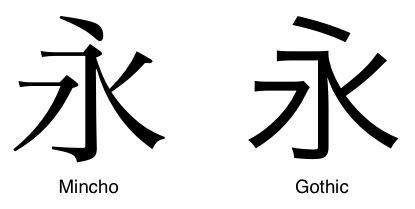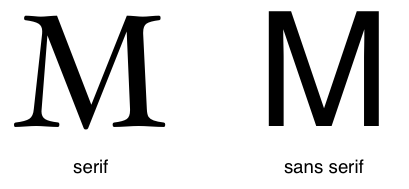
Abstract
This CSS3 module describes how font properties are specified and how font resources are loaded dynamically. The contents of this specification are a consolidation of content previously divided into CSS3 Fonts and CSS3 Web Fonts modules. The description of font load events was moved into the CSS Font Loading module.
1. Introduction
A font provides a resource containing the visual representation of characters [CHARMOD][UNICODE]. At the simplest level it contains information that maps character codes to shapes (called glyphs) that represent these characters. Fonts sharing a common design style are commonly grouped into font families classified by a set of standard font properties. Within a family, the shape displayed for a given character can vary by stroke weight, slant or relative width, among others. An individual font face is described by a unique combination of these properties. For a given range of text, CSS font properties are used to select a font family and a specific font face within that family to be used when rendering that text. As a simple example, to use the bold form of Helvetica one could use:
Font resources may be installed locally on the system on which a user agent is running or downloadable. For local font resources descriptive information can be obtained directly from the font resource. For downloadable font resources (sometimes referred to as web fonts), the descriptive information is included with the reference to the font resource.
Families of fonts typically don't contain a single face for each possible variation of font properties. The CSS font selection mechanism describes how to match a given set of CSS font properties to a single font face.
2. Typography Background
This section is non-normative.
Typographic traditions vary across the globe, so there is no unique way to classify all fonts across languages and cultures. For even common Latin letters, wide variations are possible:
variations in glyphs for a single character
One character, many glyph variations
Differences in the anatomy of letterforms is one way to distinguish fonts. For Latin fonts, flourishes at the ends of a character's main strokes, or serifs, can distinguish a font from those without. Similar comparisons exist in non-Latin fonts between fonts with tapered strokes and those using primarily uniform strokes:
For simple Latin text, only the font for Latin characters is downloaded:
In this case the user agent first checks the unicode-range for the font containing Latin characters (DroidSans.woff). Since all the characters above are in the range U+0-5FF, the user agent downloads the font and renders the text with that font.
Next, consider text that makes use of an arrow character (⇨):